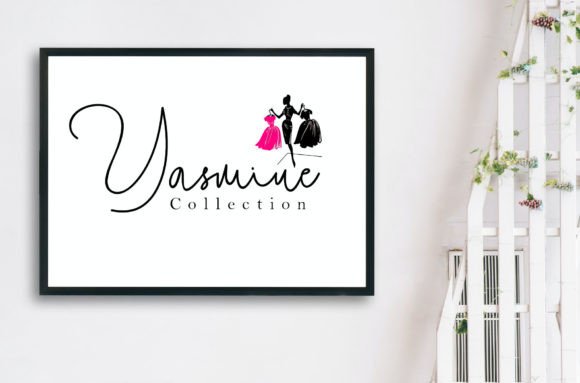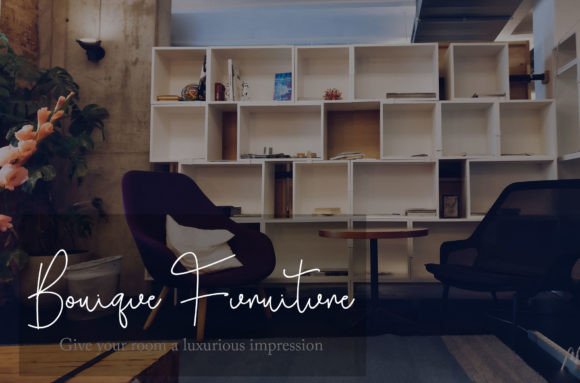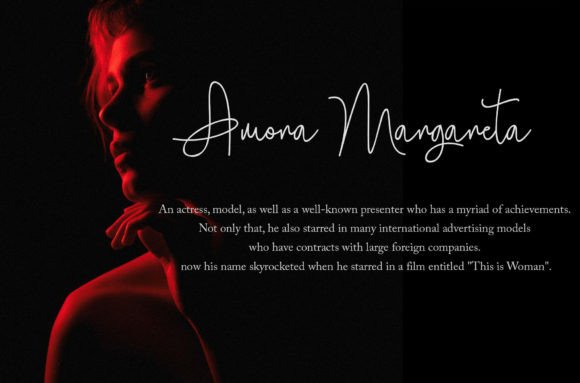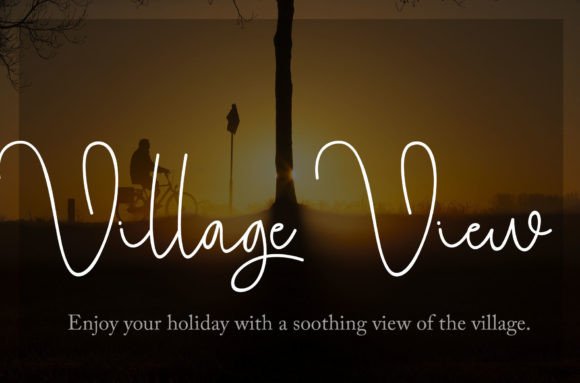
The Central Font
About The Central Font
Introducing The Central, a modern and classy calligraphy font that exudes elegance. This font comes with beautiful ligatures and lovely alternates, adding a touch of sophistication to your designs. The Central features a beautiful, light stroke, making it well-suited for various applications, including wedding invitations, business cards, fashion designs, and more.
The Central’s modern and classy calligraphy style brings a sense of refinement to your projects. The ligatures and alternates enhance its versatility, allowing you to customize your text with beautiful and unique flourishes.
Imagine The Central gracing wedding invitations, where its elegant strokes convey a timeless and romantic feel. Picture it on business cards, adding a touch of class to your professional branding. Visualize it complementing fashion designs, creating a stylish and sophisticated look.
More than just a font, The Central becomes a key element in elevating the visual appeal of your designs. Its modern calligraphy style is not only trendy but also carries a timeless quality, ensuring that your projects stand out with a touch of class.
Add The Central to your font collection and witness how it transforms your creative endeavors, making them modern, classy, and truly memorable. Let it be the go-to choice for projects that require an extra dose of elegance and sophistication.